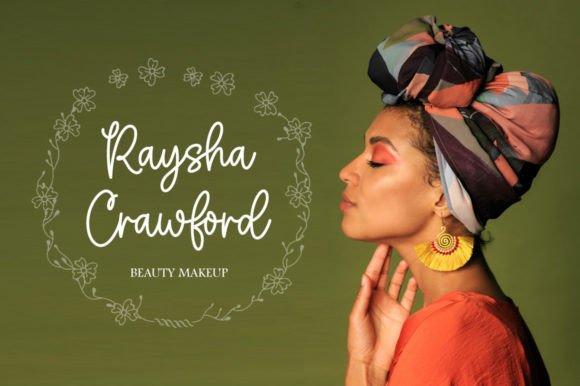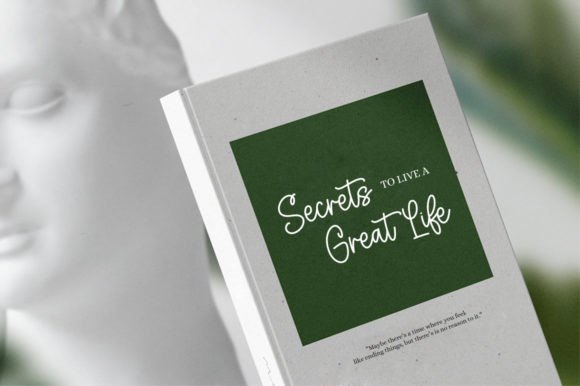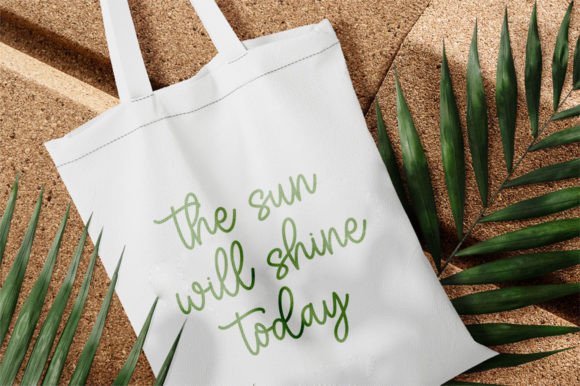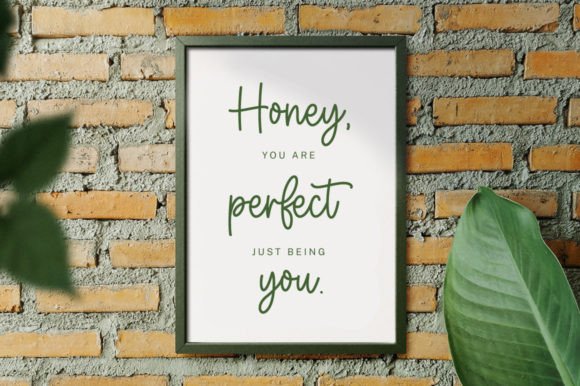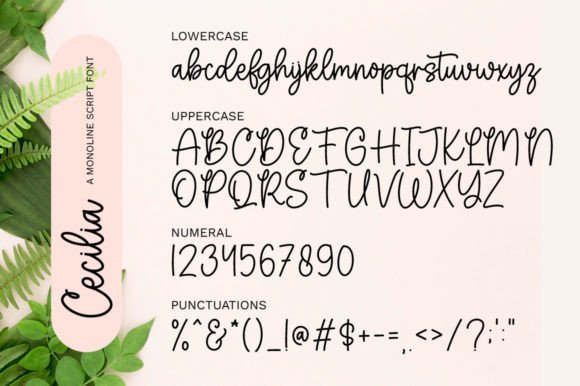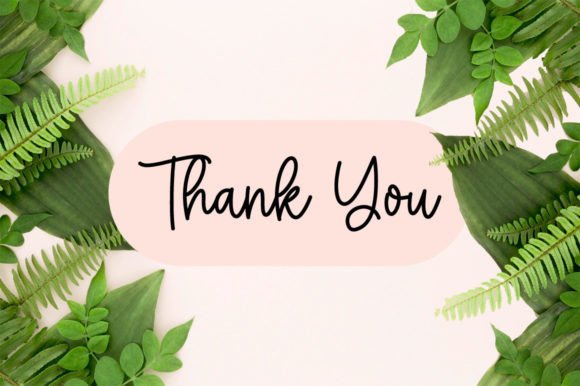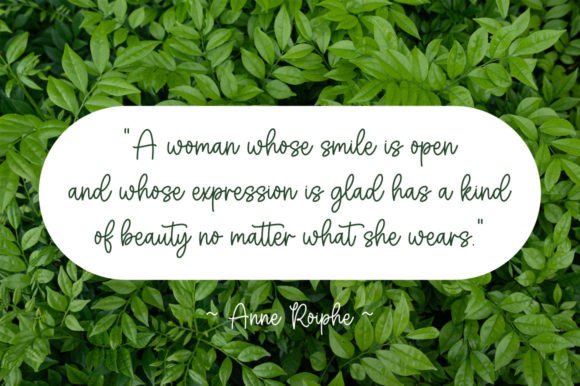
Cecilia Font
About Cecilia Font
Cecilia is a beautiful, well-balanced, and graceful script font. It is defined by smooth curves and is perfect for fashion branding or editorial designs.